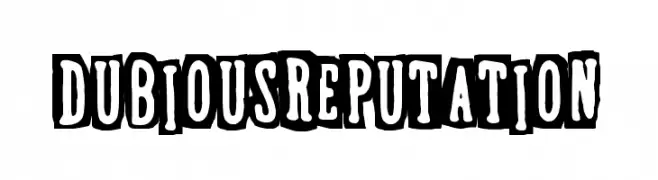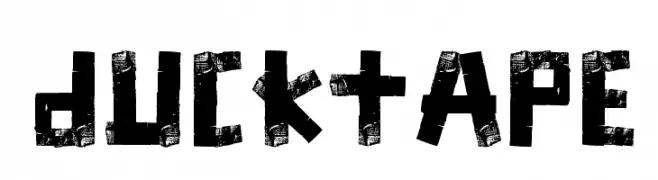
A bold, geometric font with strong, blocky characters and high contrast.
A vintage typewriter-style font with monospaced, textured characters.
A distressed, grunge-style font with a vintage, hand-crafted appearance.
A distressed, grunge-style font with a bold, ink-splattered appearance.
A bold, distressed font with a grunge, vintage style.
A modern, rounded font with a geometric and friendly design.
A modern, bold, rounded font with clean lines and balanced spacing.
A modern, bold, and italic rounded font with a sleek, angular design.
A modern, rounded, and slightly italicized font with a sleek, angular design.
A modern, geometric font with rounded edges and a light weight.
A modern, angular font with rounded edges and an italic slant, offering a light and airy feel.
A modern, geometric font with thin, angular lines and rounded corners.
A modern, angular, and rounded thin italic font with a futuristic style.
A bold, collegiate-style font with strong, block-like characters.
A distressed, vintage collegiate-style font with a rugged, worn-out appearance.
A bold, textured font with a distressed, vintage look.
A bold, eroded font with a vintage, distressed look.
A bold, collegiate-style font with strong, block-like characters.
A bold, outlined collegiate-style font with strong, clean lines.
A bold, distressed collegiate-style font with a vintage, rugged appearance.
A bold, distressed font with a vintage, rugged style.
A bold, rounded font with a collegiate style and friendly appearance.
A bold, collegiate-style font with strong, blocky characters and pronounced serifs.
A playful, hand-drawn comic-style font with a whimsical and lively appearance.
A playful, italicized font with a comic-like, handwritten style.
A playful, informal font with rounded, consistent strokes and whimsical letterforms.
A playful, handwritten-style font with a light, italicized appearance.
A playful, outlined font with a comic-like, whimsical style.
A bold, playful handwritten font with smooth, rounded edges.
A bold, italic, comic-inspired font with a playful and energetic style.
A playful, handwritten font with smooth, rounded edges and a casual flow.
A playful, italicized handwritten font with smooth, rounded strokes.
A playful, handwritten font with smooth, rounded edges and a casual, friendly appearance.